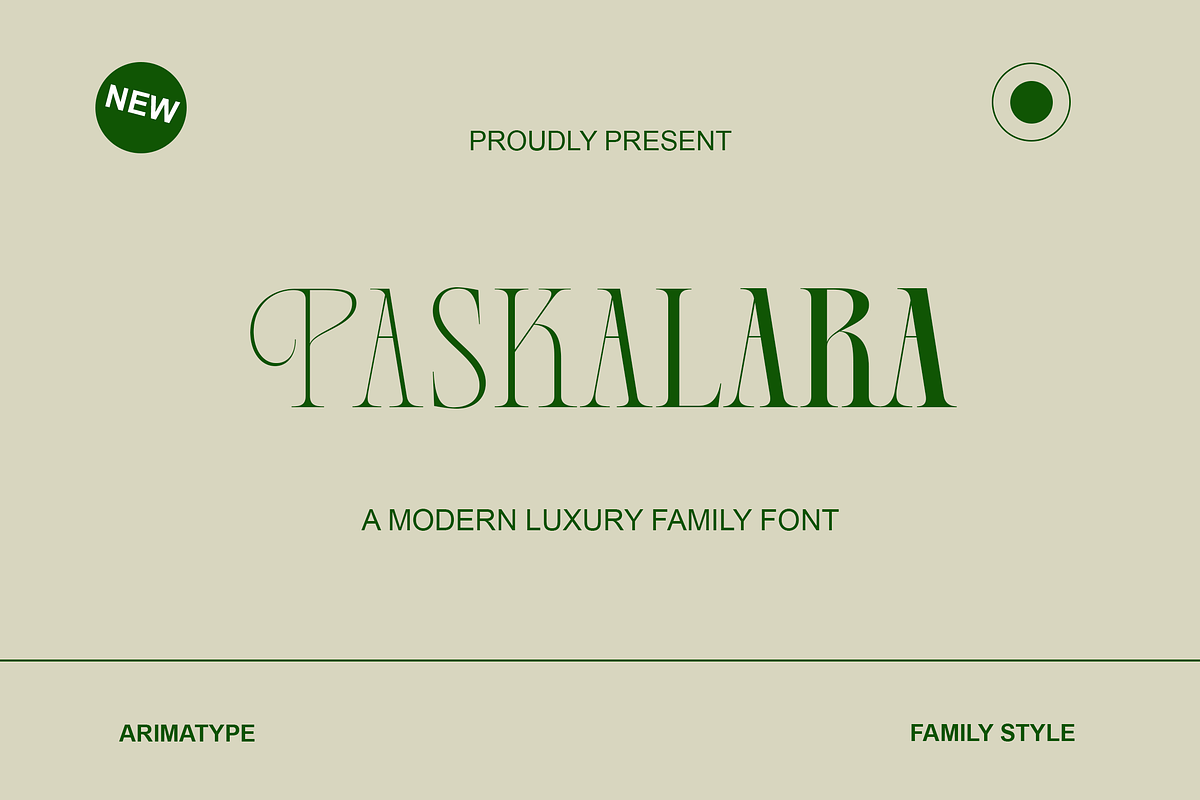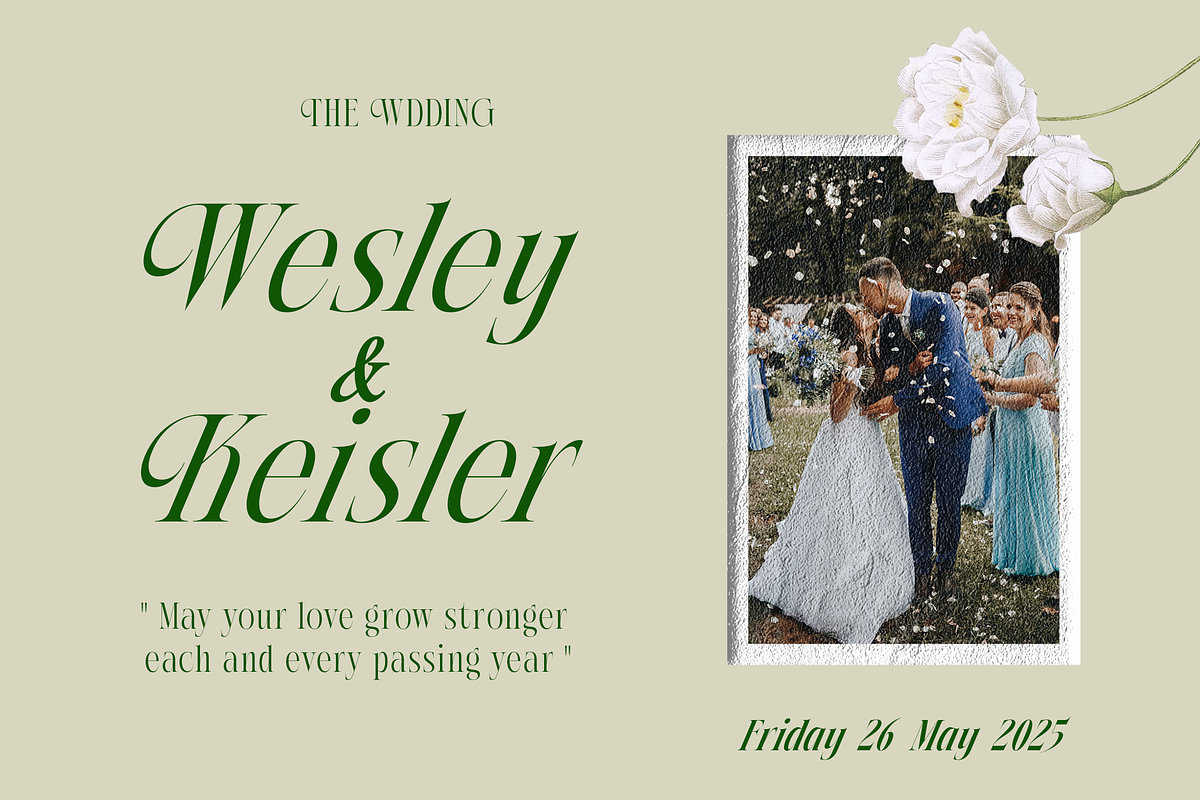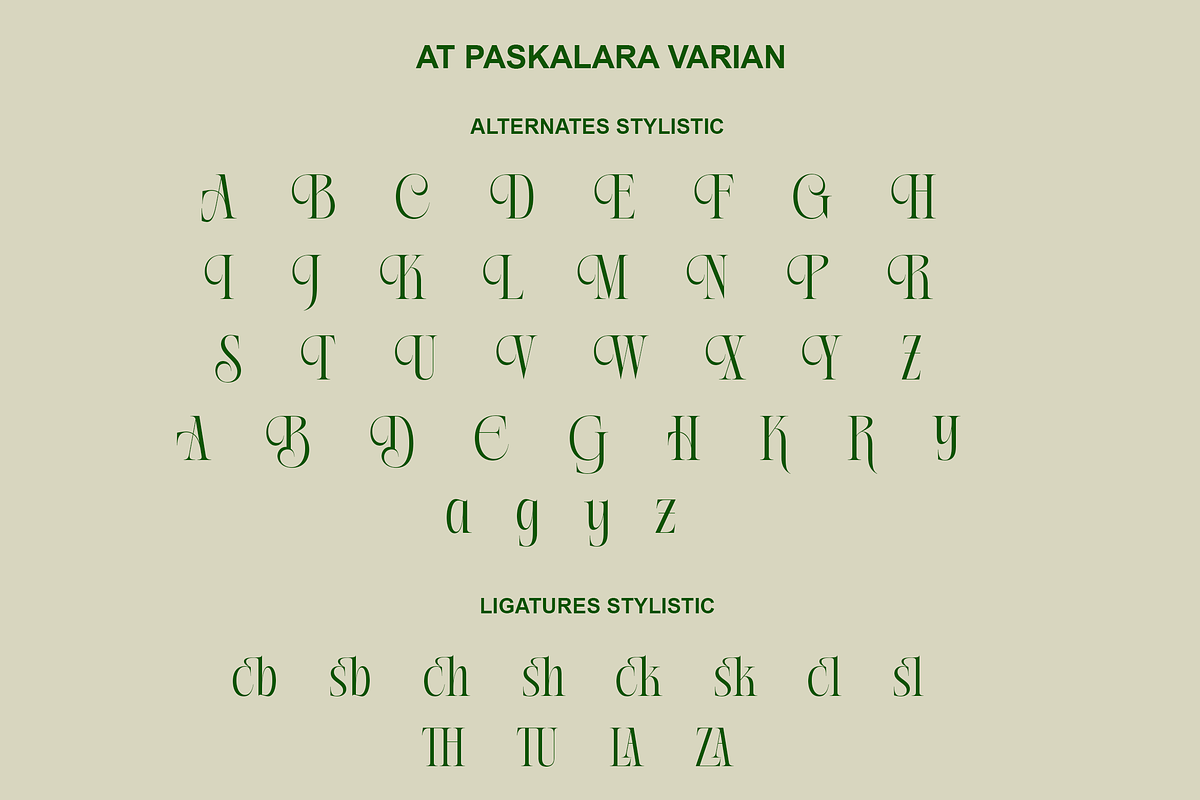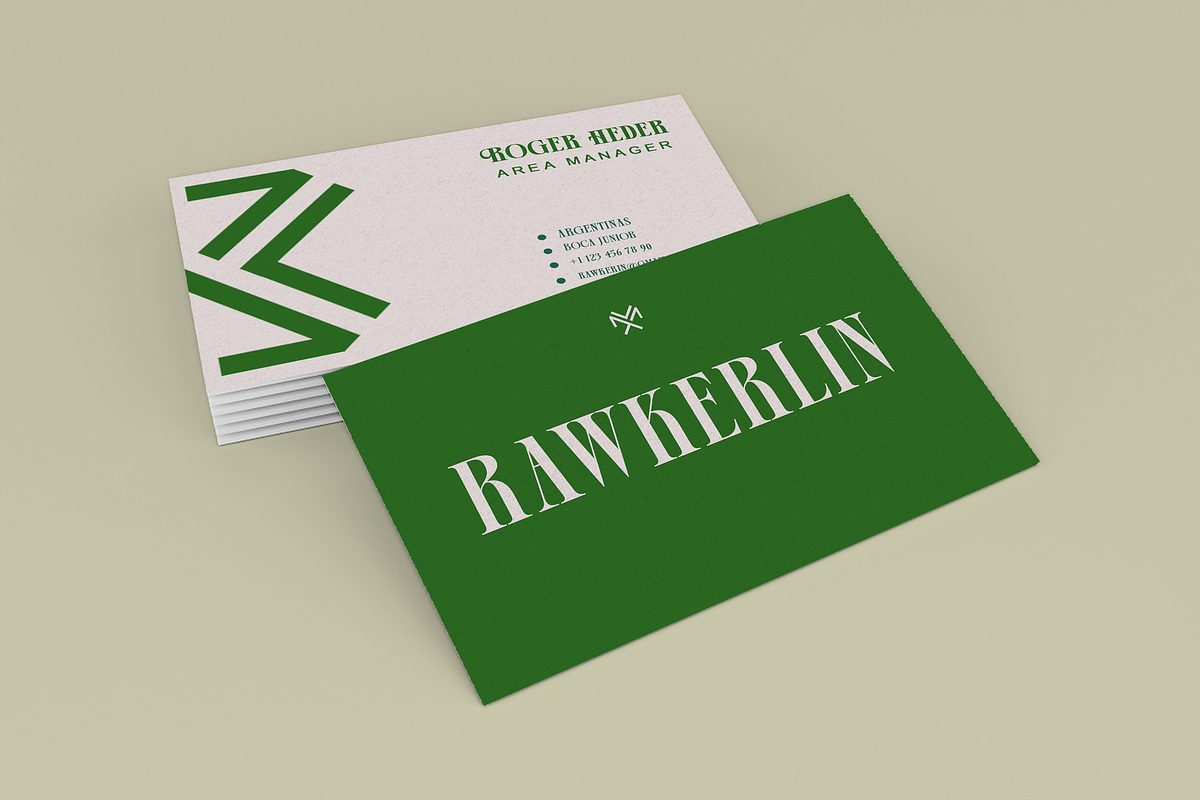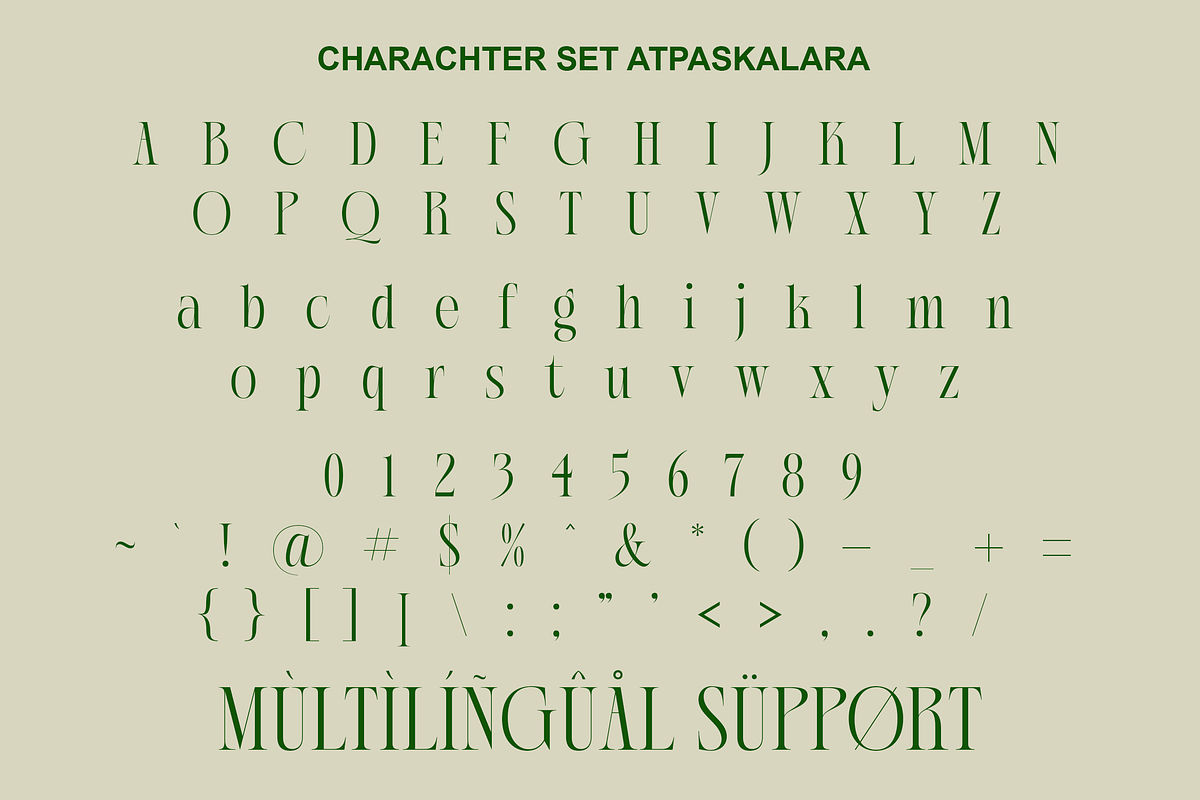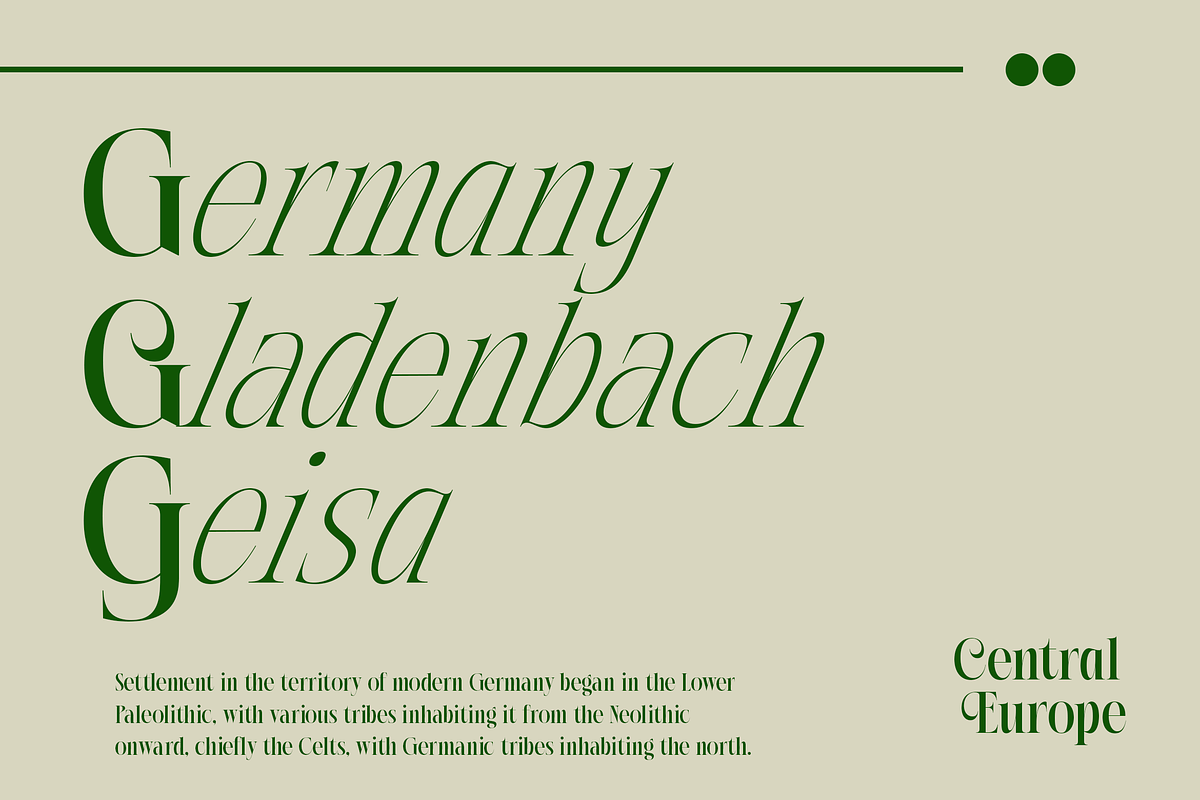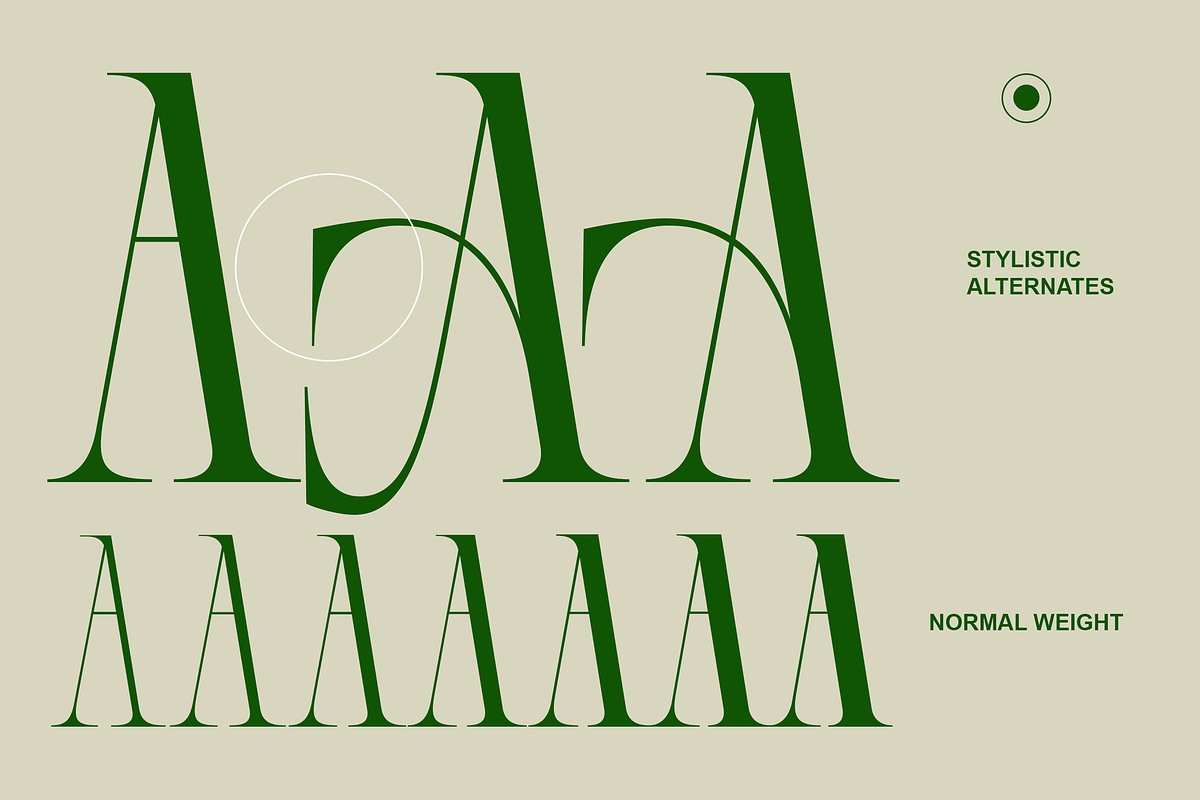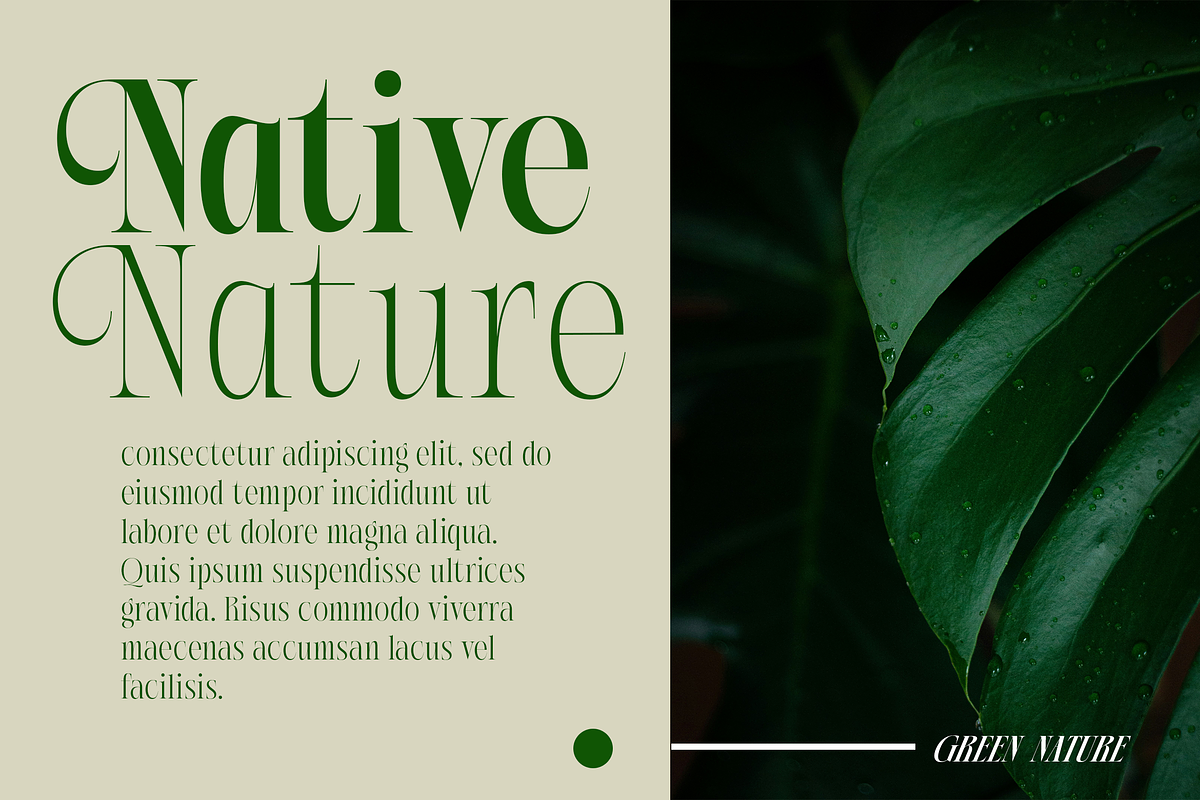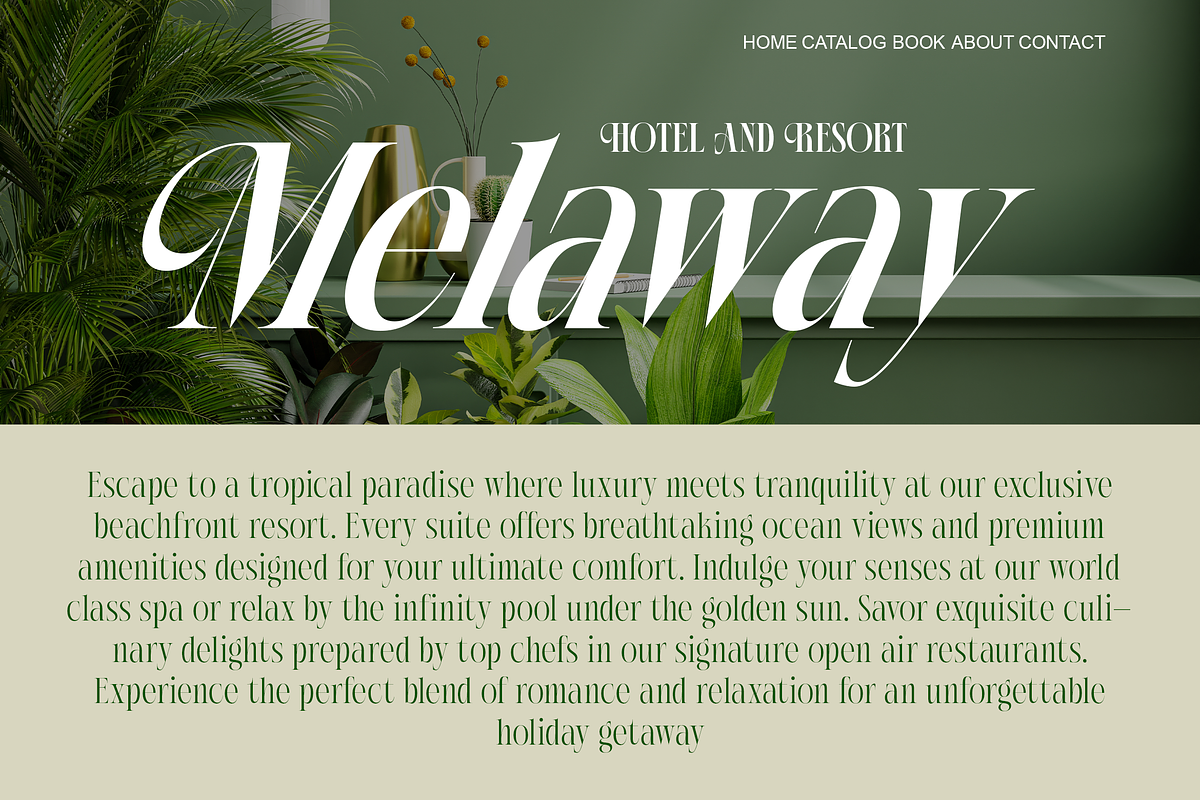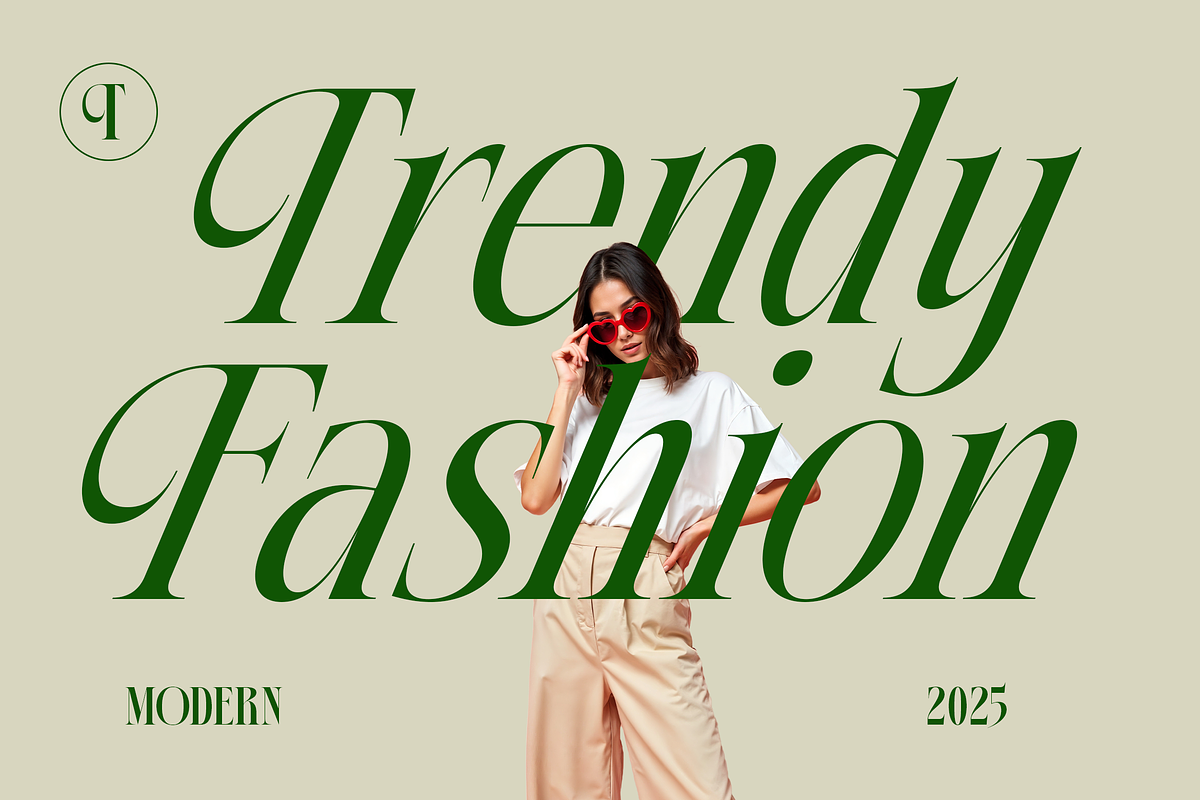
AT Paskalara
Paskalara is a serif typeface designed with a quiet confidence that leans into calm elegance rather than loud ornamentation. Its gentle curves and measured stroke contrast give it a relaxed presence, yet it still carries enough sophistication to hold its own in more formal settings. The design embraces a go-with-the-flow attitude: it doesn’t try too hard, but it still looks refined in any situation.
Created with versatility in mind, Paskalara adapts easily to a wide range of uses. Whether placed on book covers, editorial layouts, branding systems, or digital interfaces, it brings a smooth, composed personality that fits both casual and polished contexts. It's the kind of serif that feels at home everywhere without losing its subtle charm.